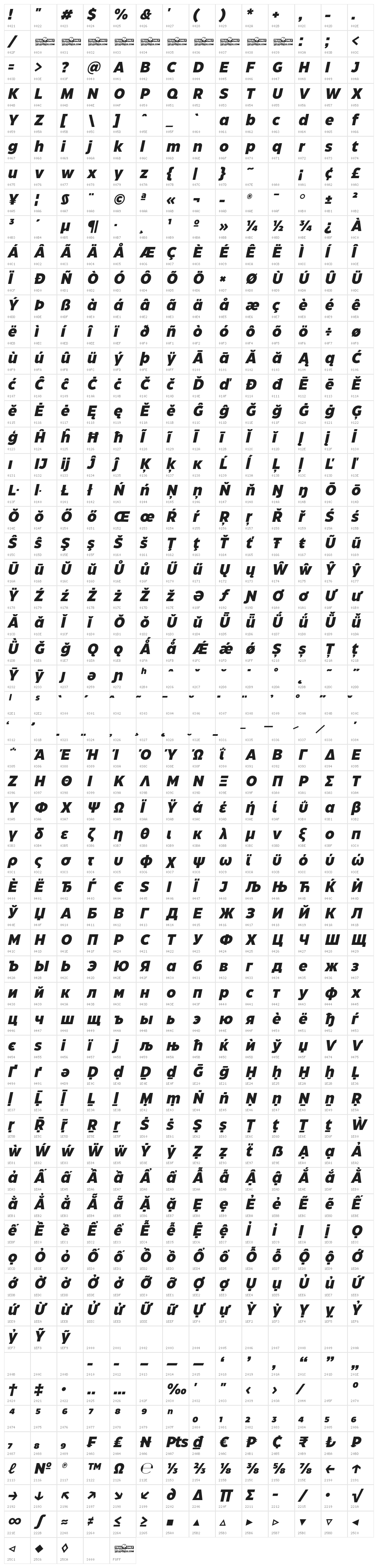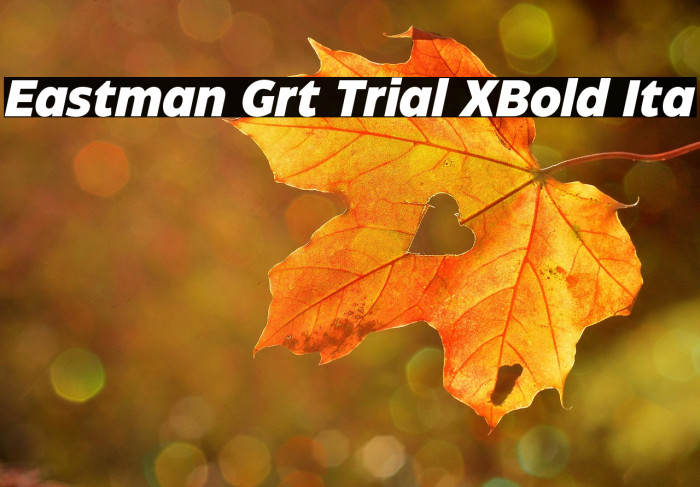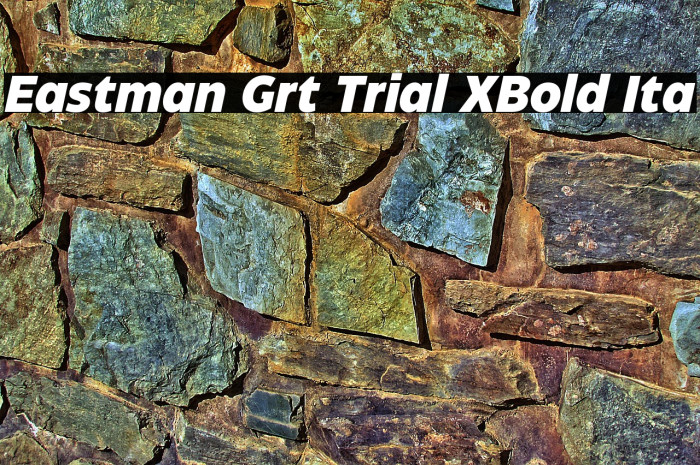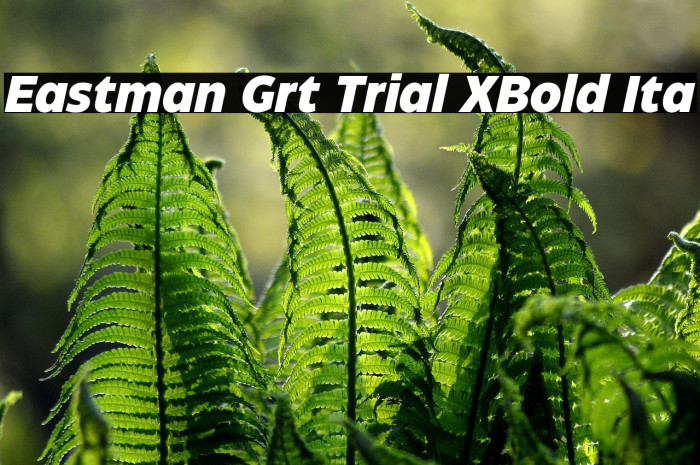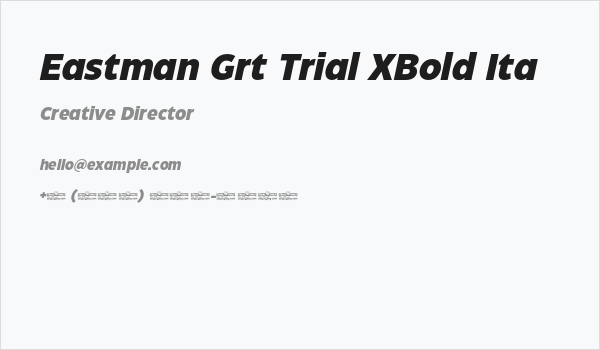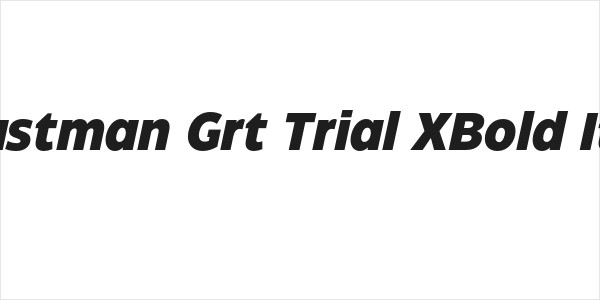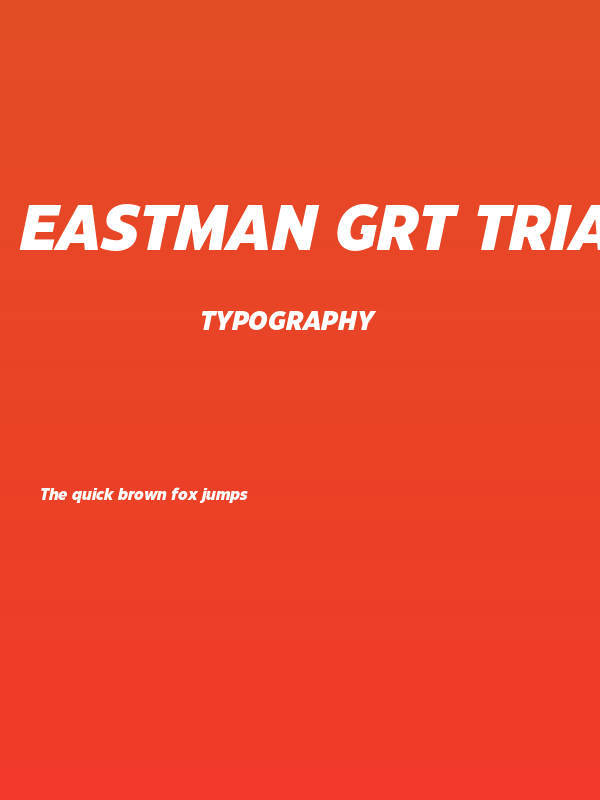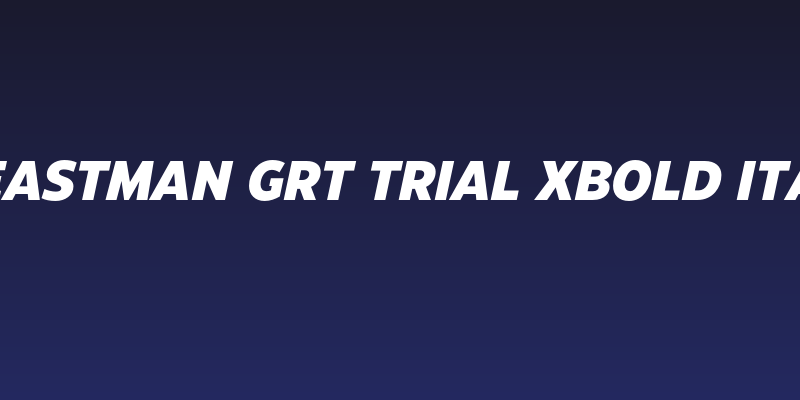
Eastman Grt Trial XBold Ita Font
Eastman Grt Trial XBold Ita Description
This typeface exhibits a bold and italicized style, characterized by its strong, impactful presence. The letters are designed with a slight forward slant, enhancing the dynamic and energetic feel. The strokes are thick and consistent, providing a robust and confident appearance. The uppercase and lowercase letters maintain a uniformity that ensures readability while adding a modern touch. The numerals and special characters are crafted to match the overall boldness, making them suitable for attention-grabbing designs.
| Proposed Projects | Ideal for branding, advertising, headlines, and any project requiring a bold, modern statement. |